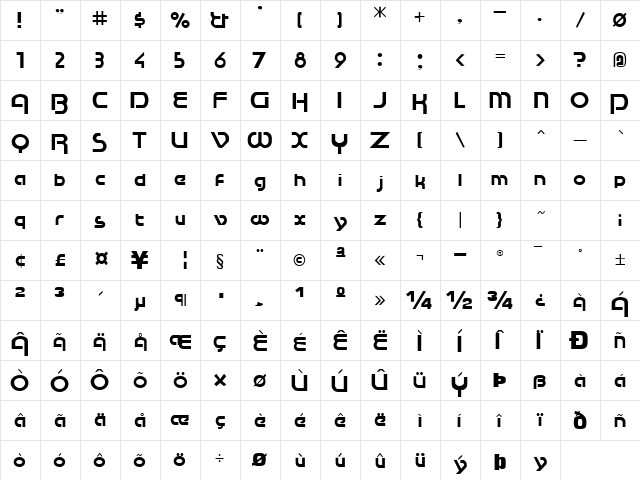
Swish Regular
Design Context for Swish Typeface
Swish is a composed and adaptable typeface that performs quietly and consistently across a wide range of design contexts.